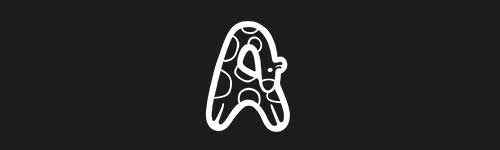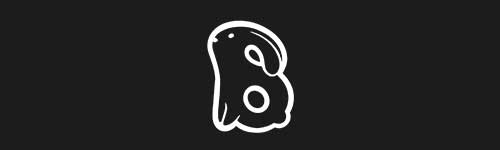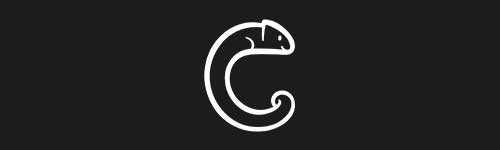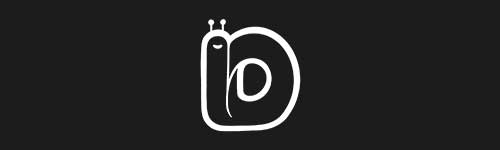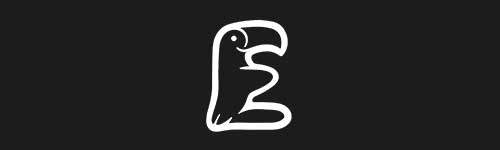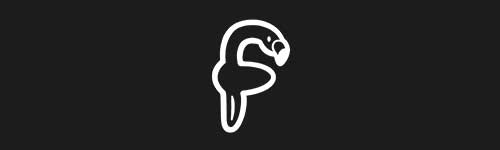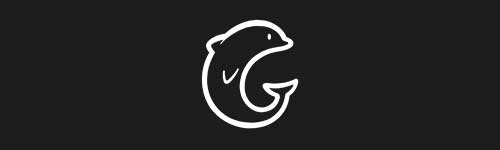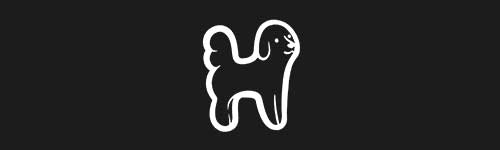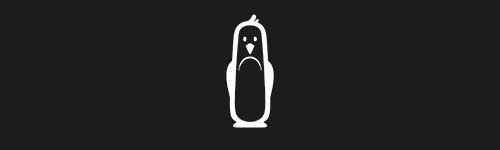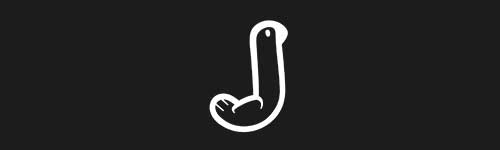
Animals Font artwork and Procreate brush previews
Animals FontBrush pack for Procreate
About Animals Font
This fun and vibrant pack features 26 brushes, each representing a different letter of the alphabet as an adorable animal. Perfect for kids or anyone looking to add a playful touch to their projects, this pack brings the alphabet to life in the most creative way!